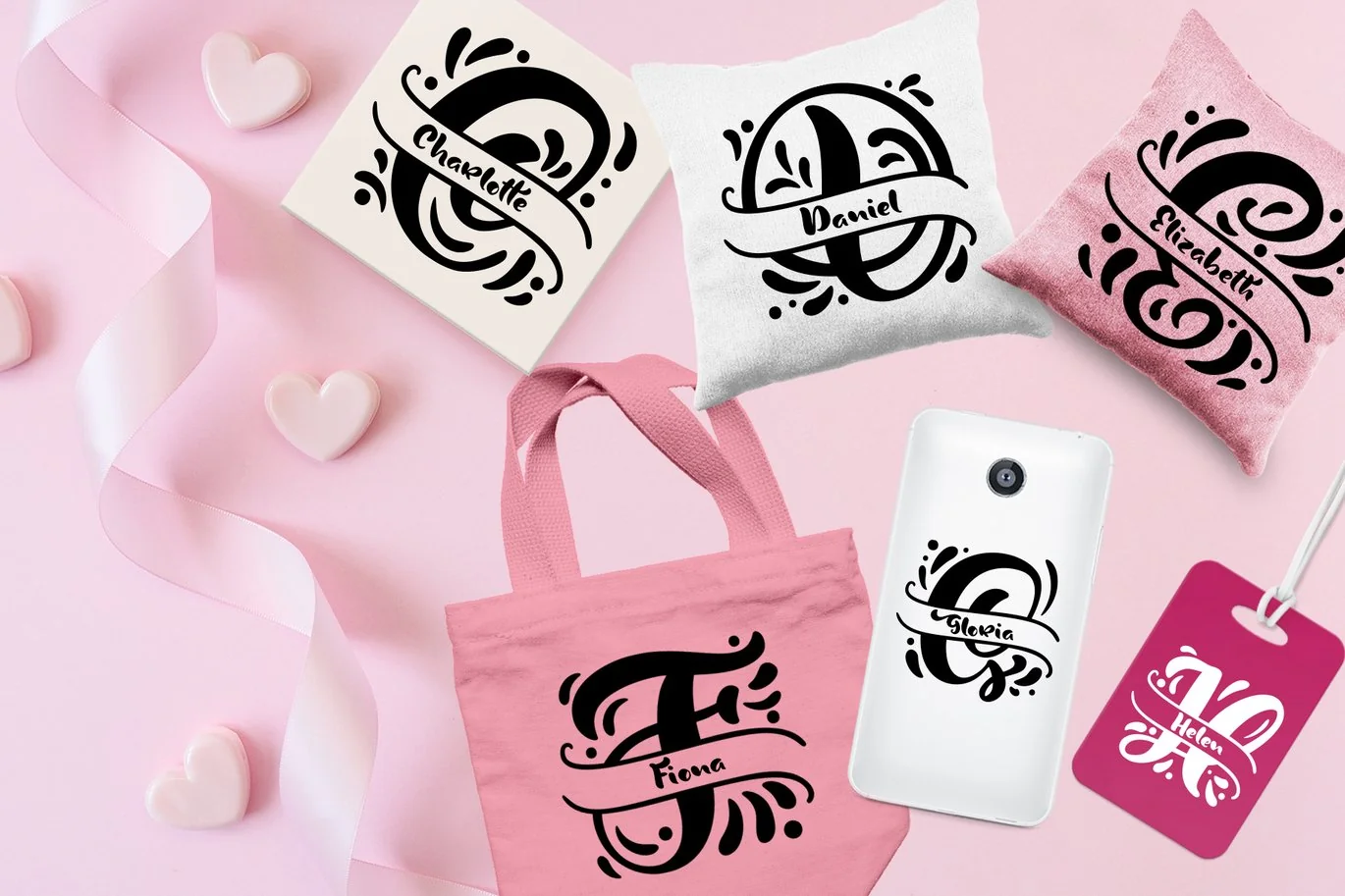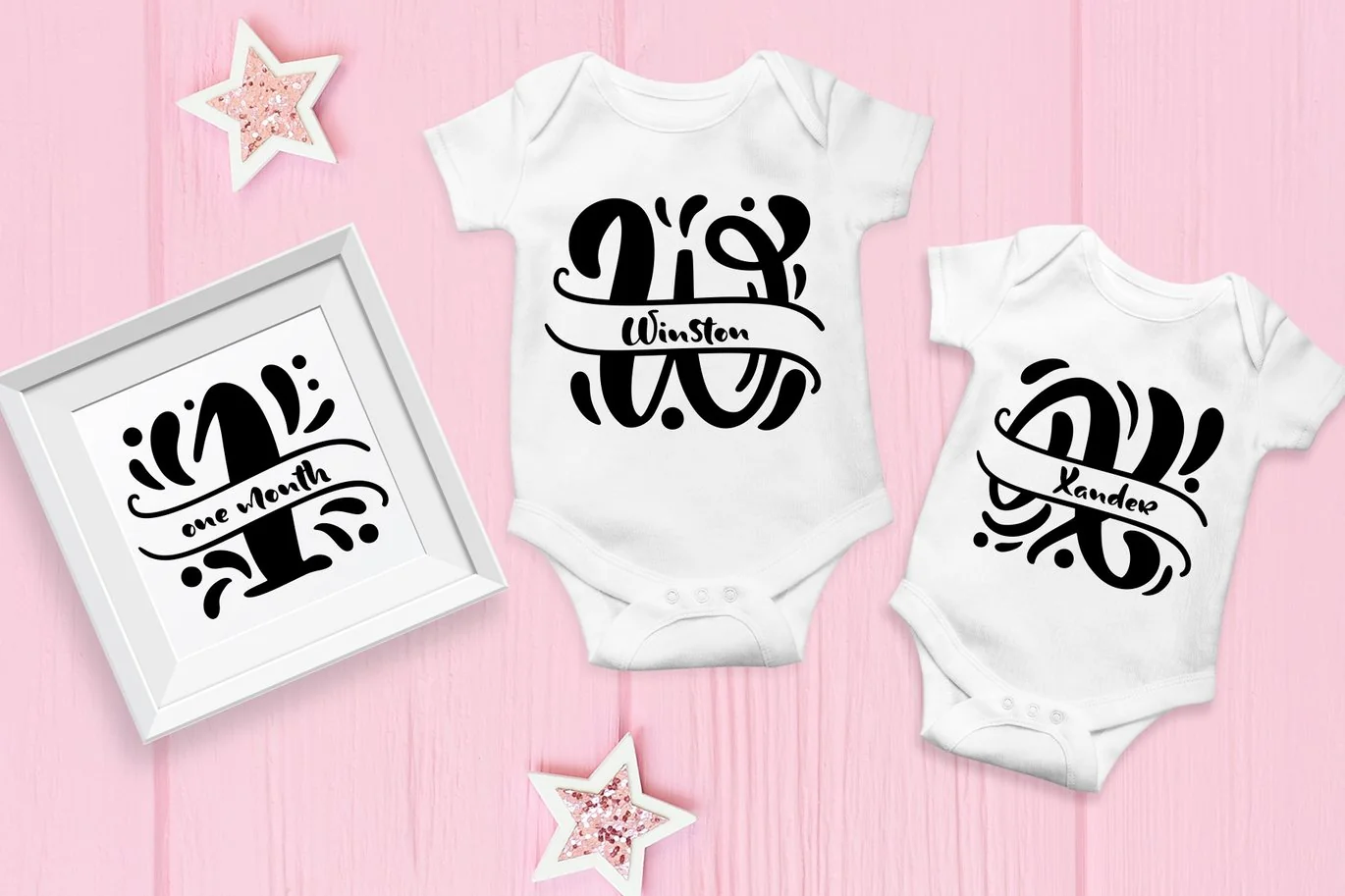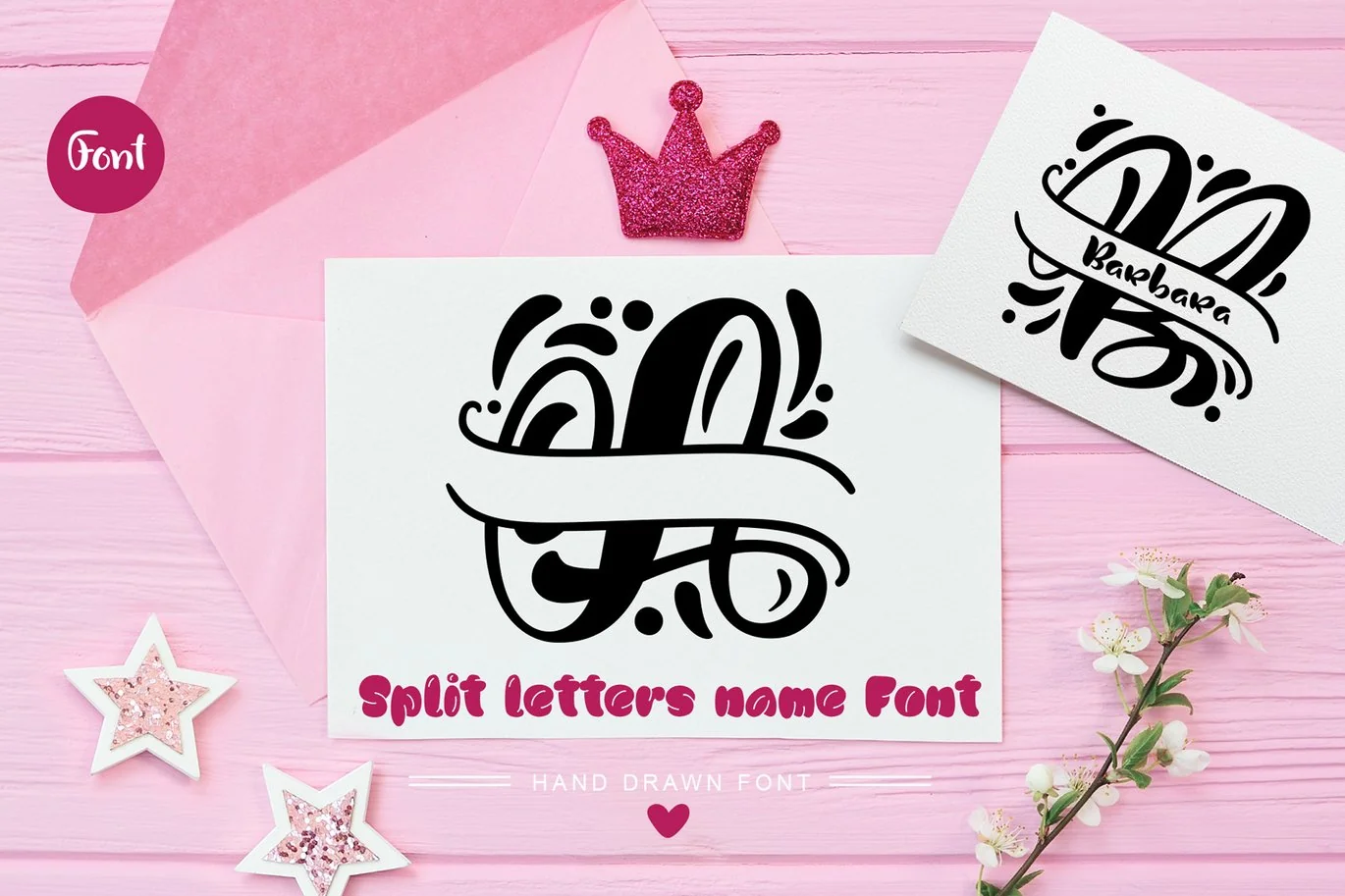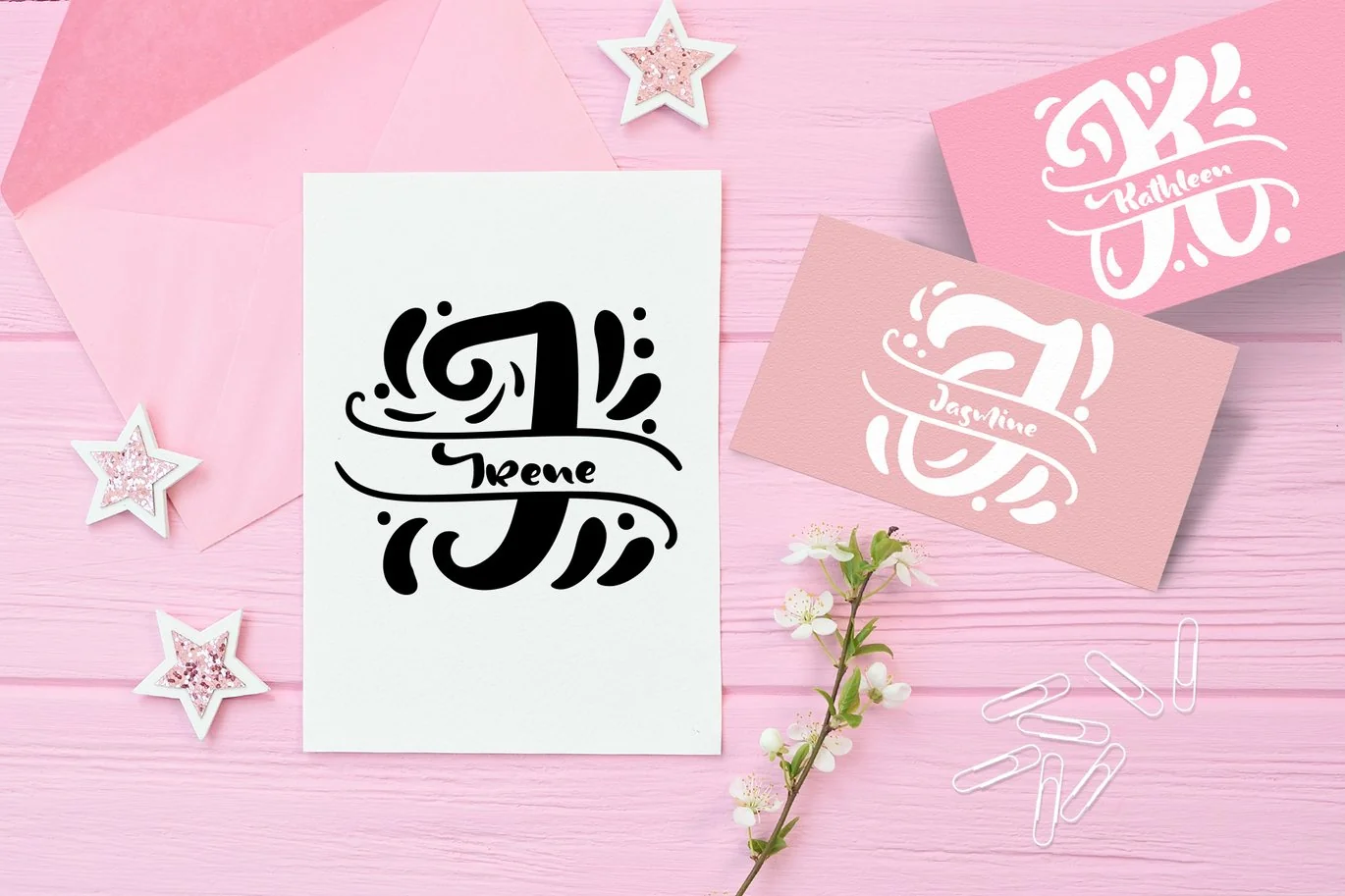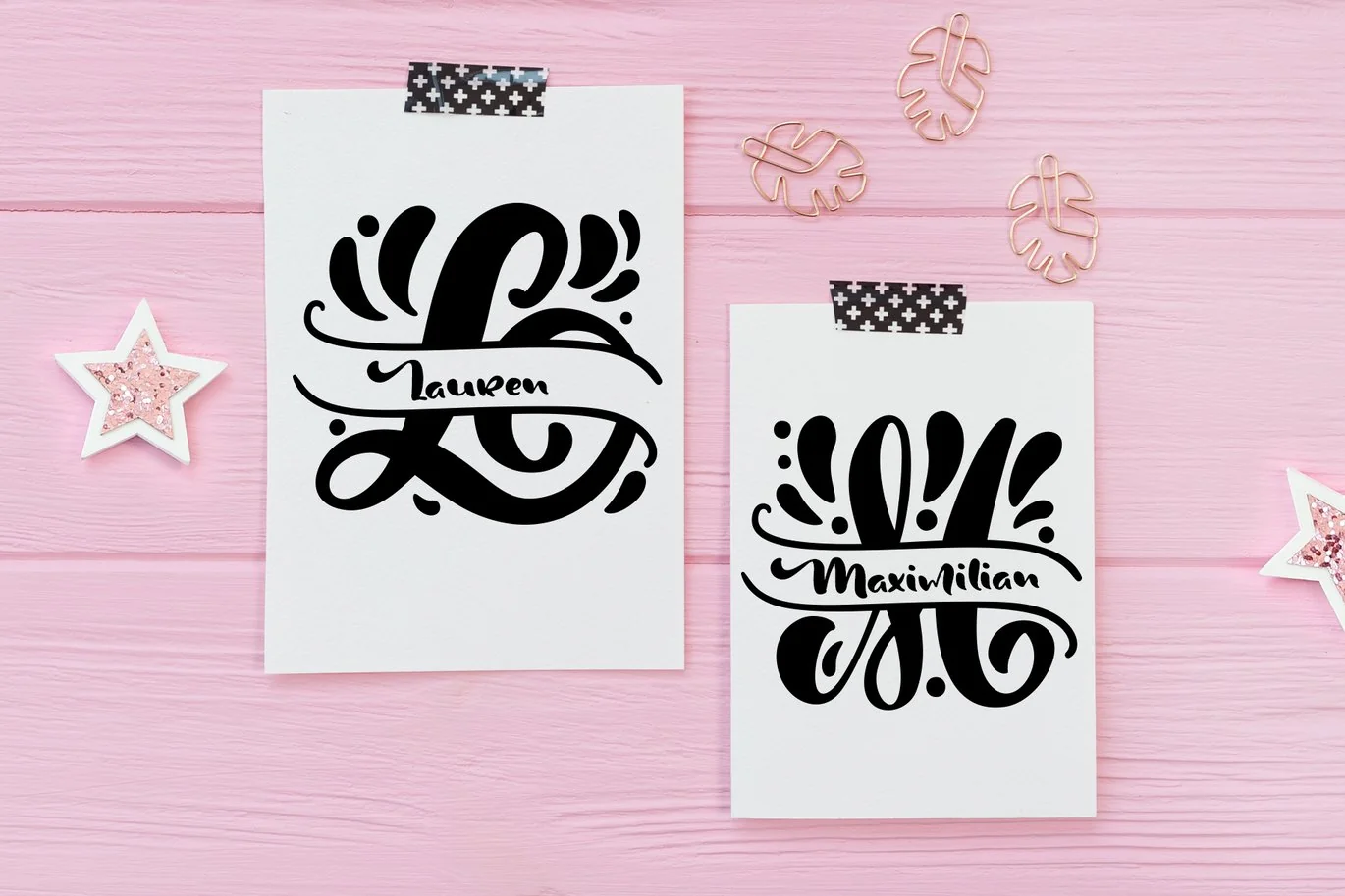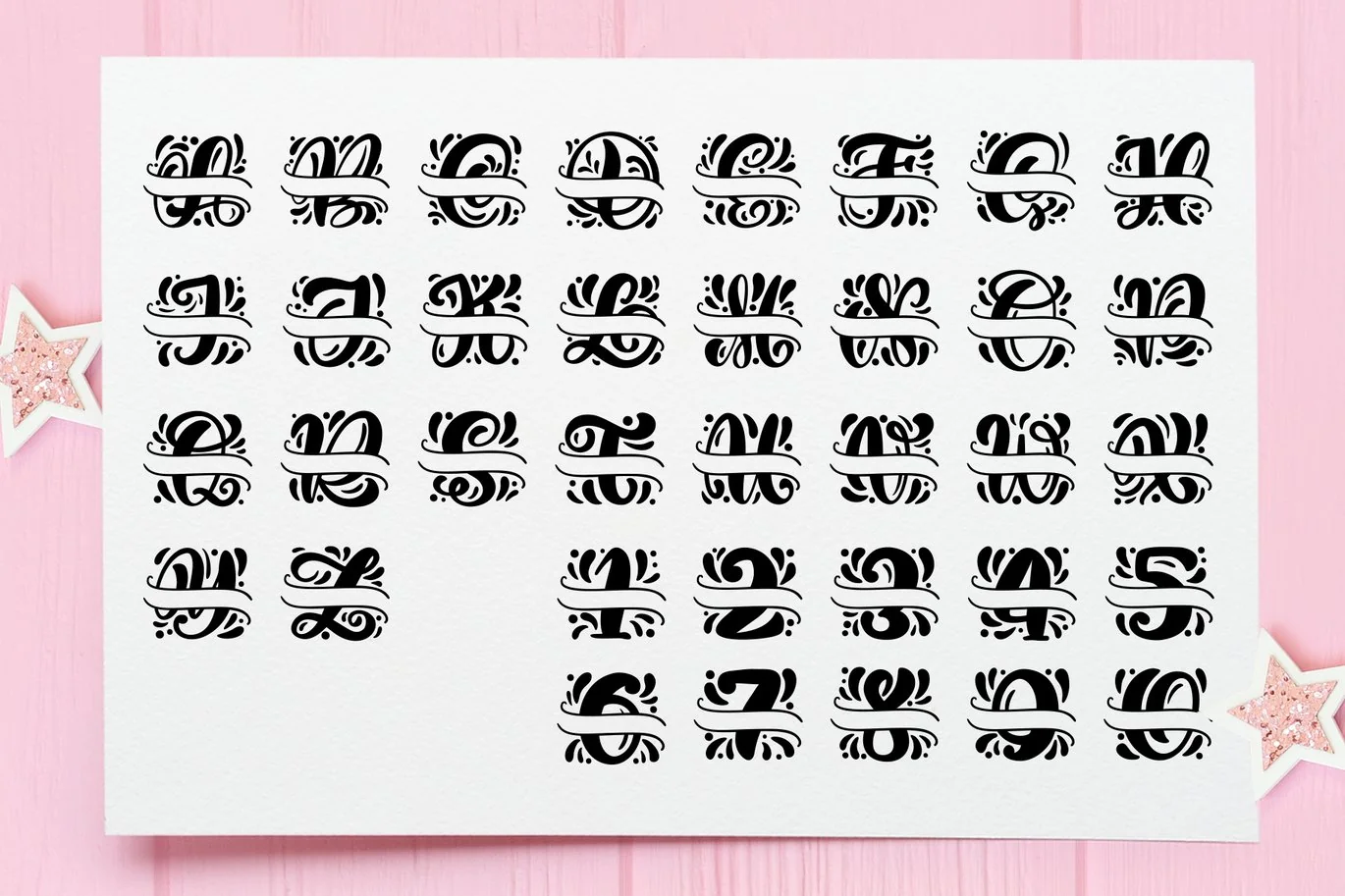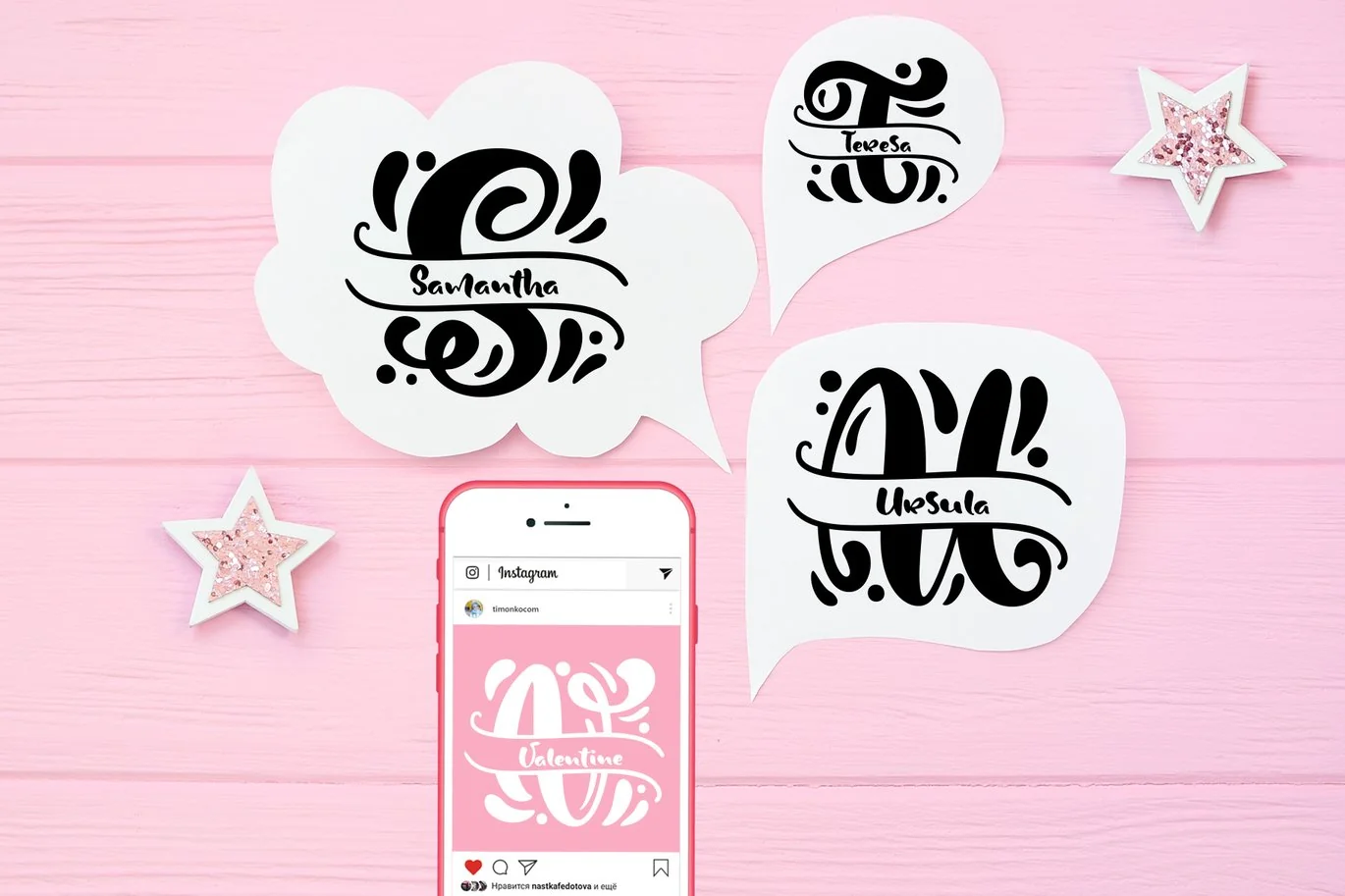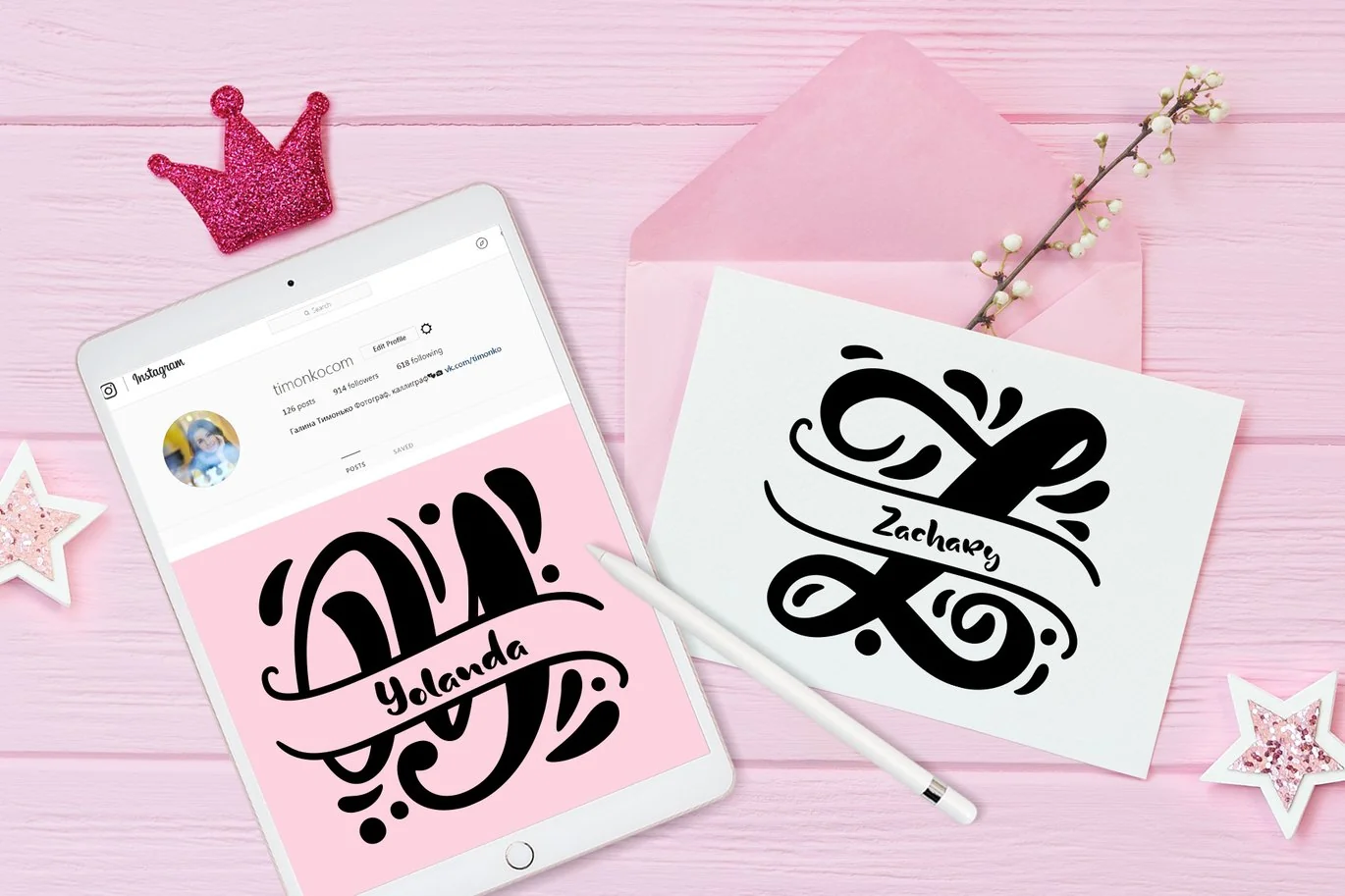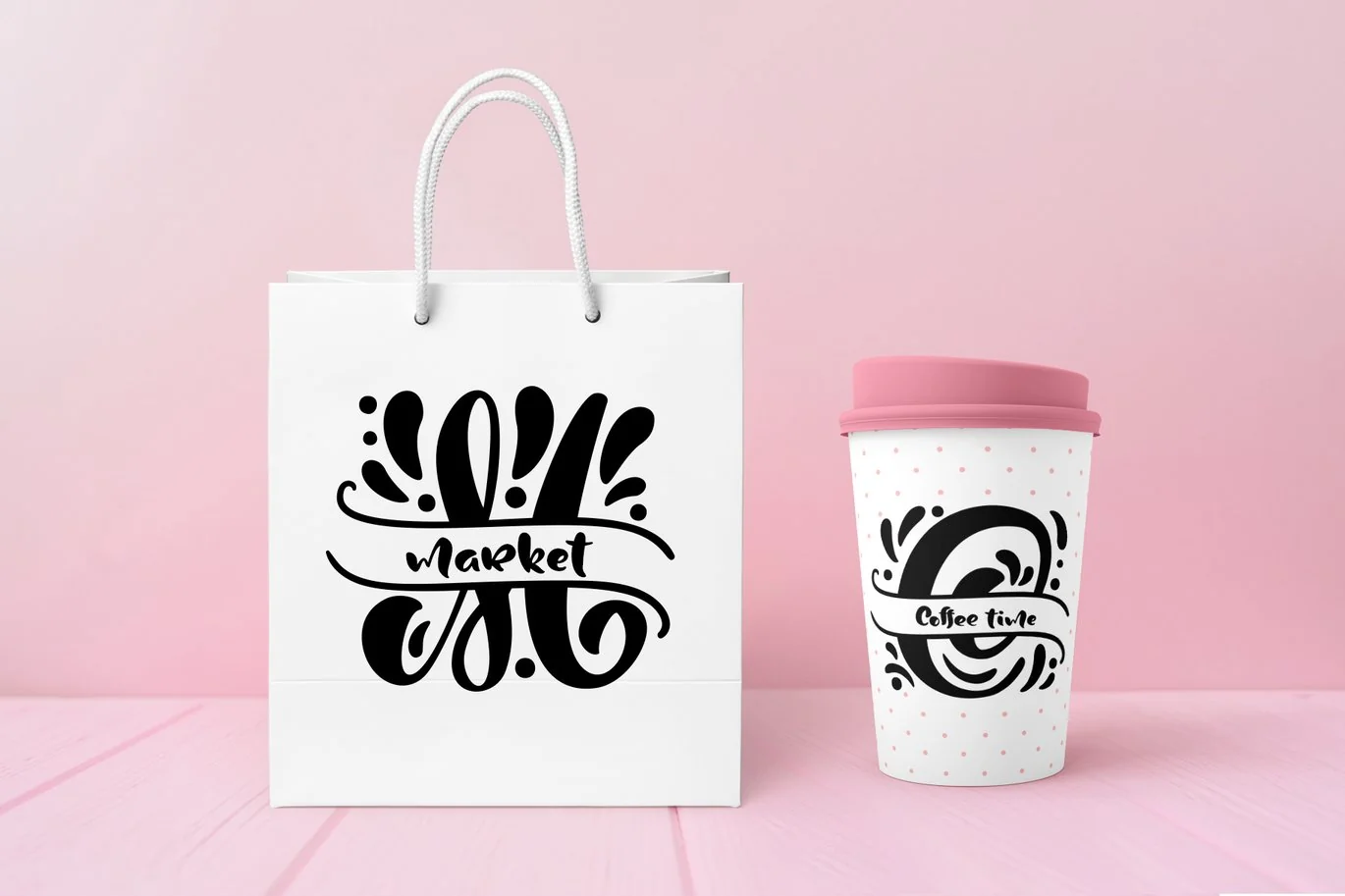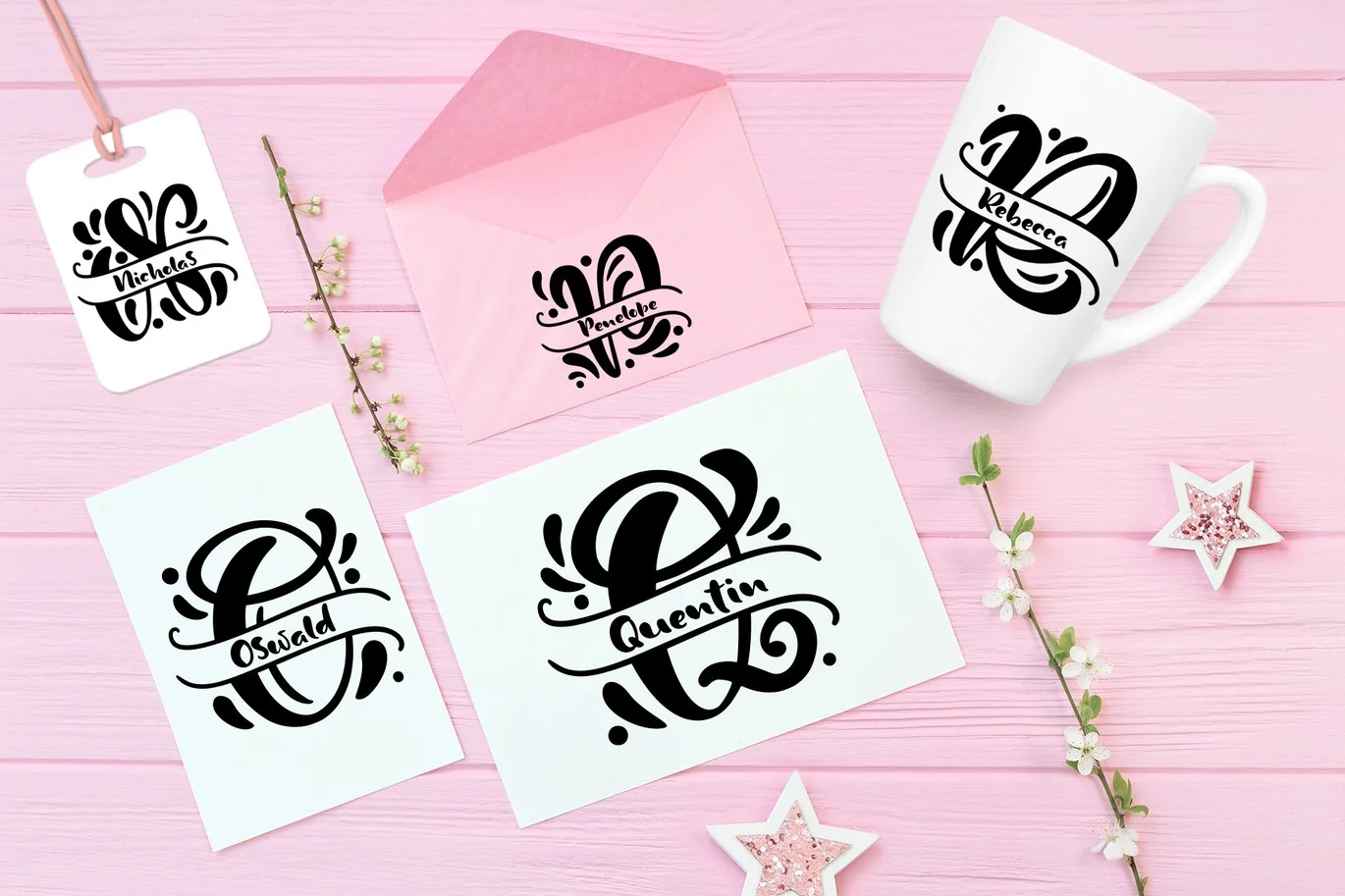
Split Letter Name Font
Split Letter Name Font includes flourishes calligraphy swirl letters split in center for inside your name that on baby birthday print, initials kids, wedding holiday or Valentines greeting cards, logo, invitations, social media, Instagram, Facebook, internet shops presentation etc. Calligraphic modern lines for your romantic handmade design.
Inside the letters in the examples, the names of people are made by my another font Sweet Dreams Script Font
In this font CAPITAL and lowercase letters are same. Therefore, you can use capital or lowercase letters.
Decorate your albums, wedding and holiday greeting cards (Christmas, Birthday, Valentine’s Day, Mothers Day and other holidays), logos, gift shops, tag, social media, Instagram, Facebook, internet shops presentation.
- This font is not for writing words or sentences, but for monograms. For example AH or JB.